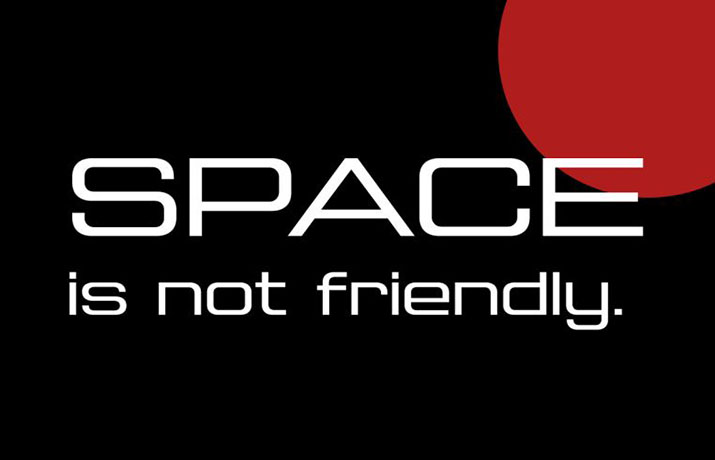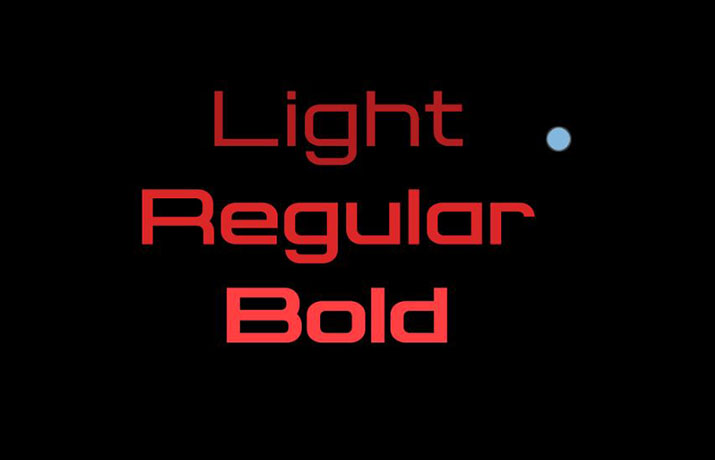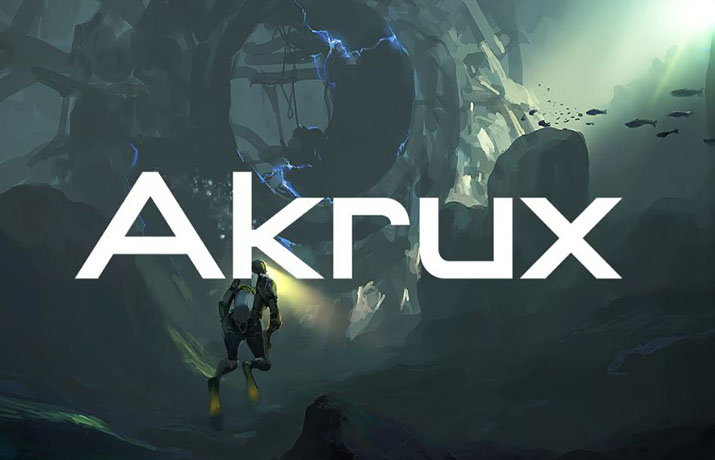
Akrux Font is a futuristic wide typeface. Designed by Eugene Bunin, this typeface draws inspiration from various sources, including the awe-inspiring concepts of space, stars, and futuristic forms.
With its clean lines and bold presence, Akrux captures the essence of futurism in a visually striking manner.
The font’s three styles offer versatility and flexibility, allowing designers to choose the perfect variant for their projects.
Whether you’re working on a space-themed movie poster, a futuristic cartoon logo, an artistic masterpiece, or even designing the control panels of imaginary spaceships, Akrux is a fitting choice.
Akrux font is a captivating and visually appealing typeface that draws inspiration from the vastness of space and the world of imagination.
This font tries in your next professional design project for creating book covers, book layouts, headline purposes, logo crafting, video titling, space exploration, sci-fi movies, captivating cartoons, intriguing books, designing wedding cards, invitations, social media posters, business cards, and more.
It is a perfect companion for any project related to space, movies, cartoons, art, books, or futuristic themes. Let Akrux transport you to a world where the possibilities are infinite.